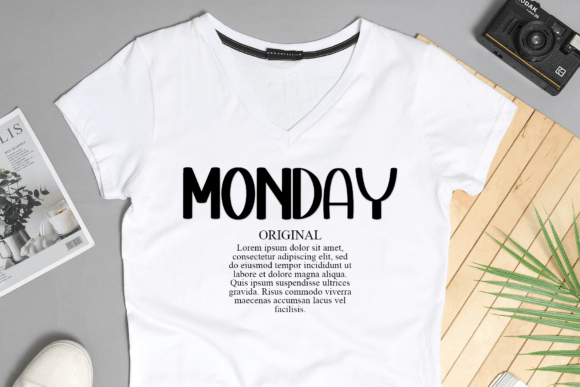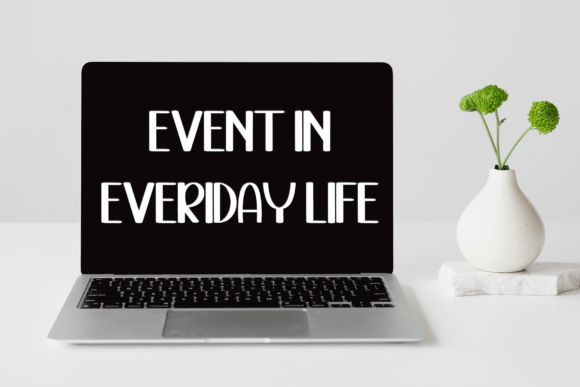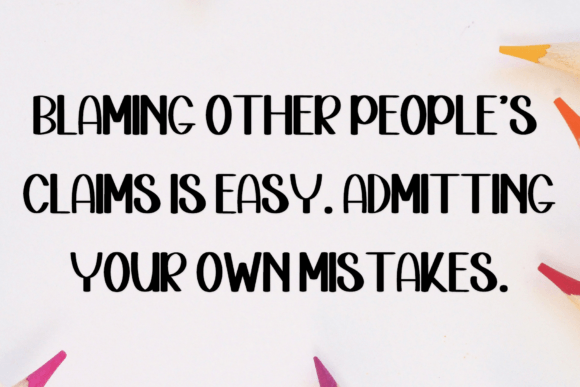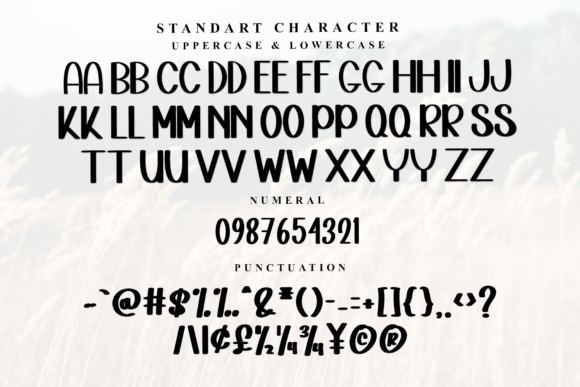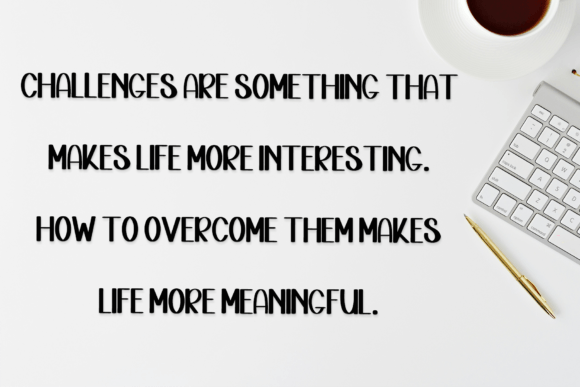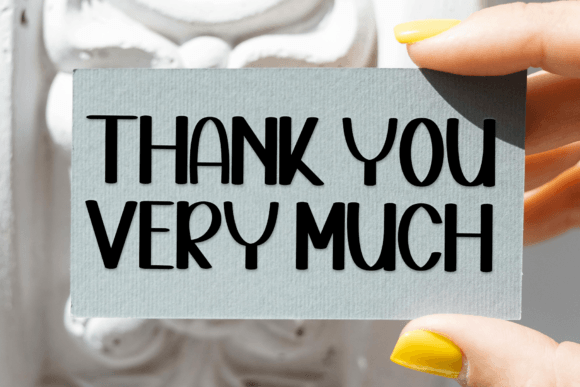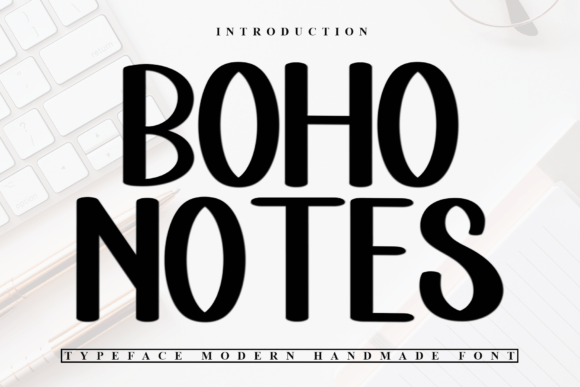
Introducing Boho Notes Font: The Ultimate Display Font for Bold Statements
Are you tired of using the same old fonts for your designs? Look no further than Boho Notes Font, a bold and stylish display font that’s perfect for making a strong impression. With its eye-catching, unique look, Boho Notes is great for headlines, posters, and anything that needs a touch of flair.
What Makes Boho Notes Font So Special?
Boho Notes Font is a one-of-a-kind display font that’s designed to turn heads. Its bold, stylish design makes it perfect for use in a variety of applications, from advertising and marketing materials to social media graphics and crafts. Whether you’re a designer, crafty DIY enthusiast, or simply someone who loves to express themselves through creative projects, Boho Notes Font is the perfect choice.
Key Features of Boho Notes Font
- Bold and Stylish Design: Boho Notes Font features a bold, stylish design that’s sure to grab attention.
- Unique Look: With its eye-catching, unique look, Boho Notes Font is perfect for making a strong impression.
- Versatile: Boho Notes Font is great for use in a variety of applications, from headlines and posters to social media graphics and crafts.
- Easily Readable: Despite its bold design, Boho Notes Font is easily readable, making it perfect for use in a variety of contexts.
Boho Notes Font is perfect for designers and crafters who are looking for a unique and stylish font to add to their collection. Whether you’re creating professional marketing materials or simply crafting handmade cards and gifts, Boho Notes Font is the perfect choice. Its bold design and easily readable text make it perfect for use in a variety of applications, from:
- Headlines and titles
- Handmade cards and gifts
- Craft projects
Tips for Using Boho Notes Font
Here are a few tips for using Boho Notes Font in your designs:
- Use it sparingly: Boho Notes Font is a bold font, so use it sparingly to add emphasis to your designs.
- Pair it with other fonts: Boho Notes Font pairs well with other fonts, so try pairing it with a simpler font to create visual interest.
- Experiment with colors: Boho Notes Font looks great in a variety of colors, so don’t be afraid to experiment and find the perfect color for your design.